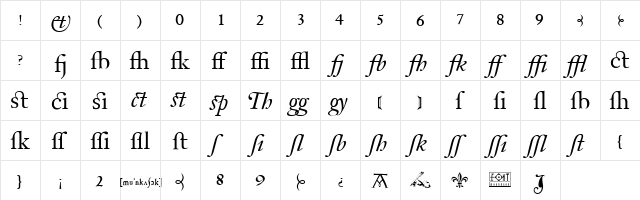
Tyrnavia Xperts Regular
Design Context for Tyrnavia Xperts Typeface
Tyrnavia Xperts takes a measured approach to typography — its balanced proportions and neutral character make it a reliable workhorse for both digital and print work.